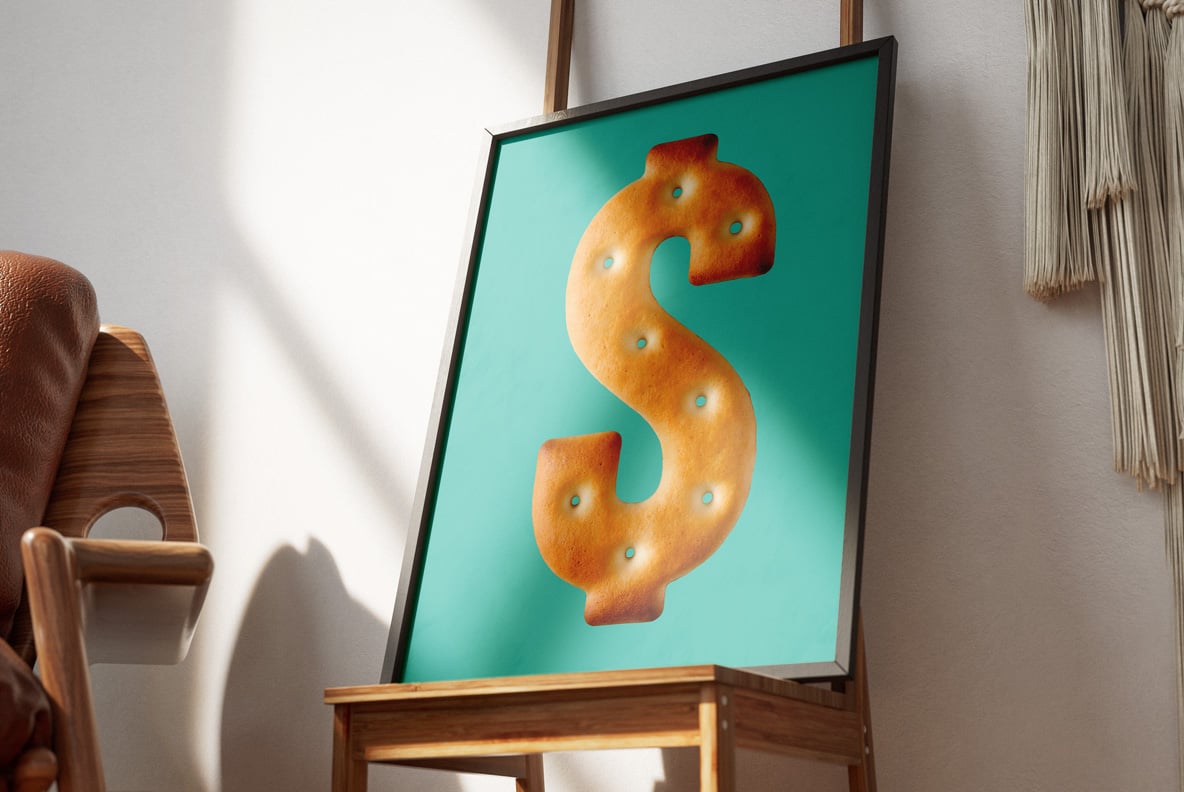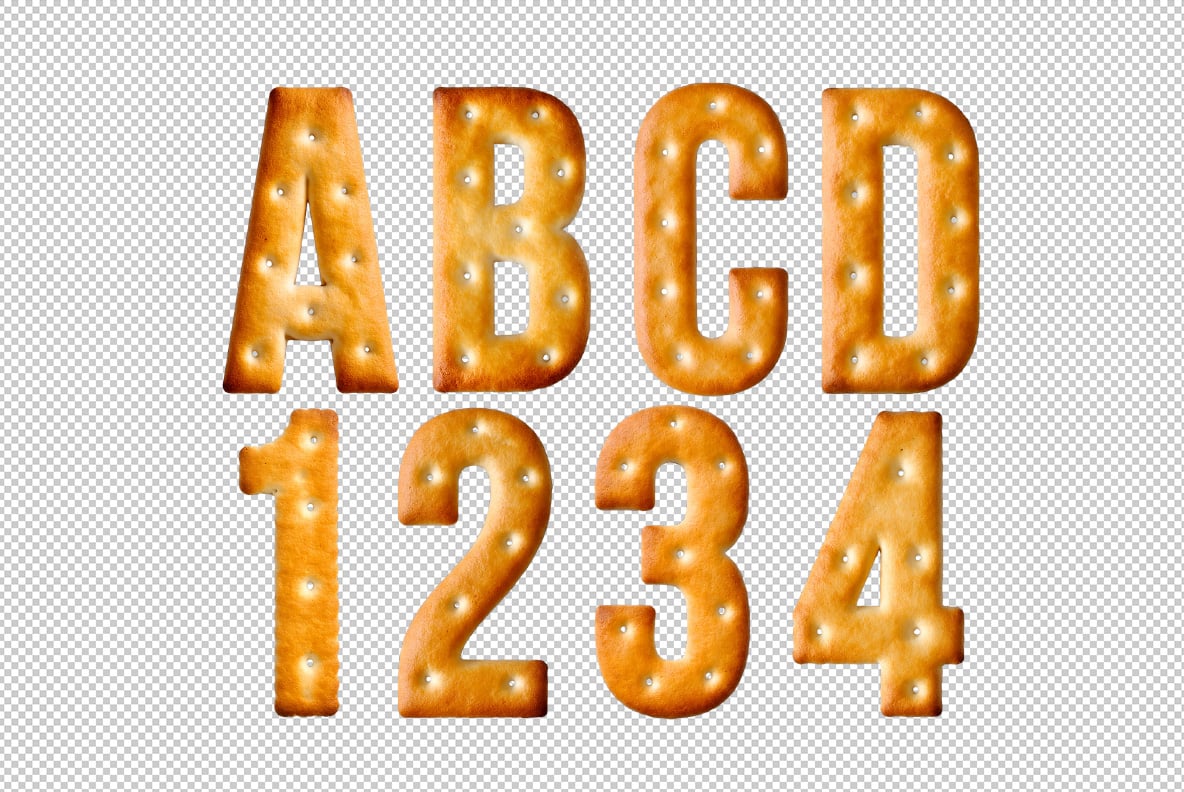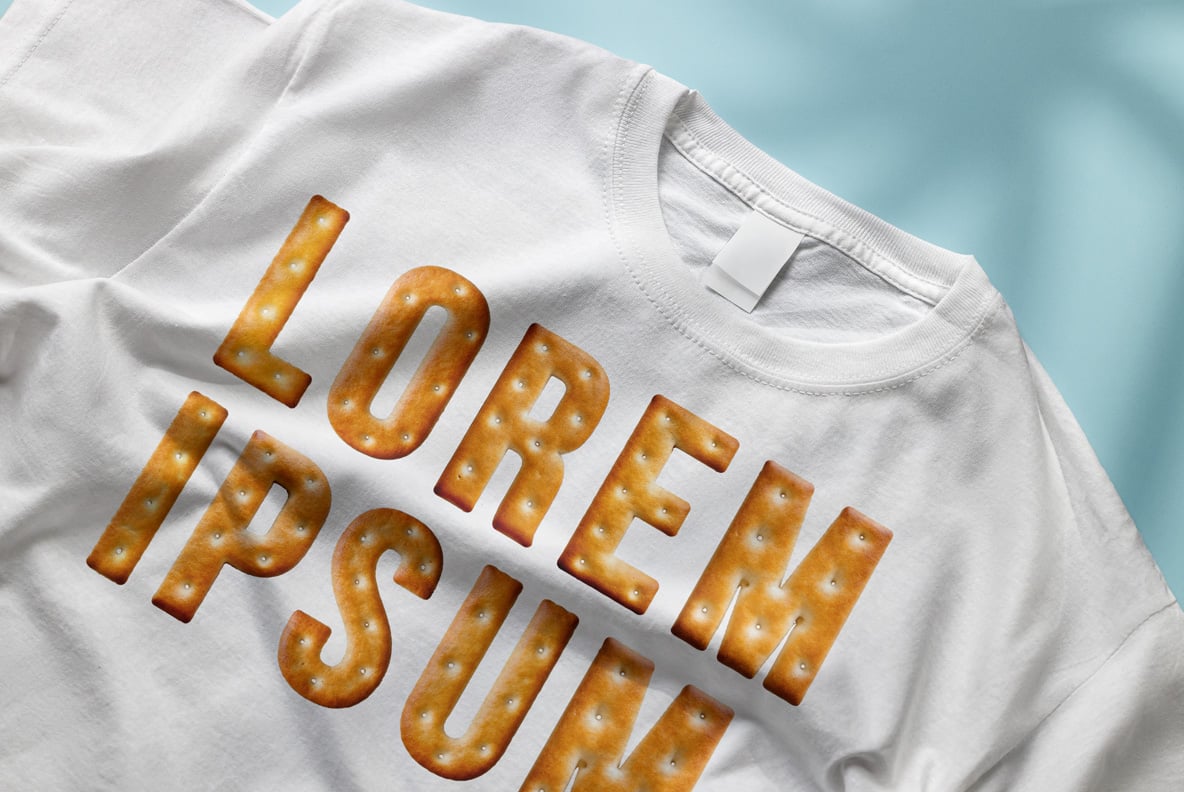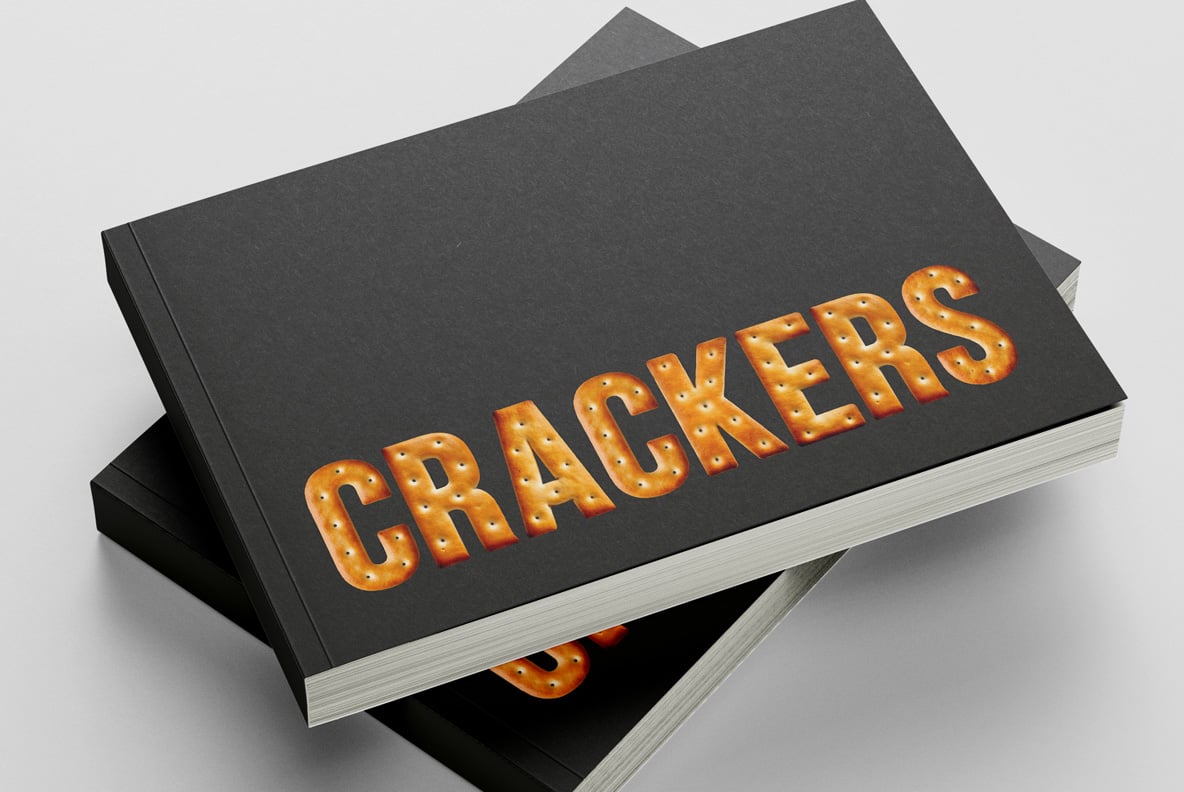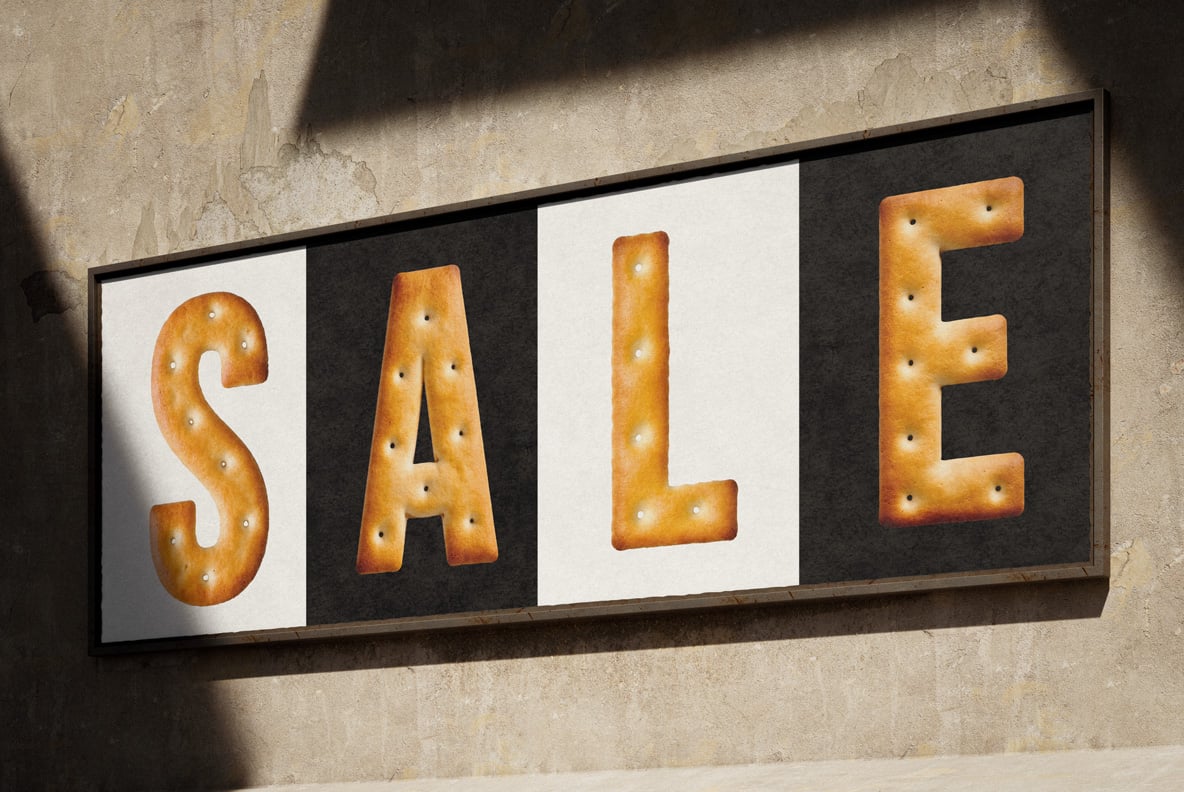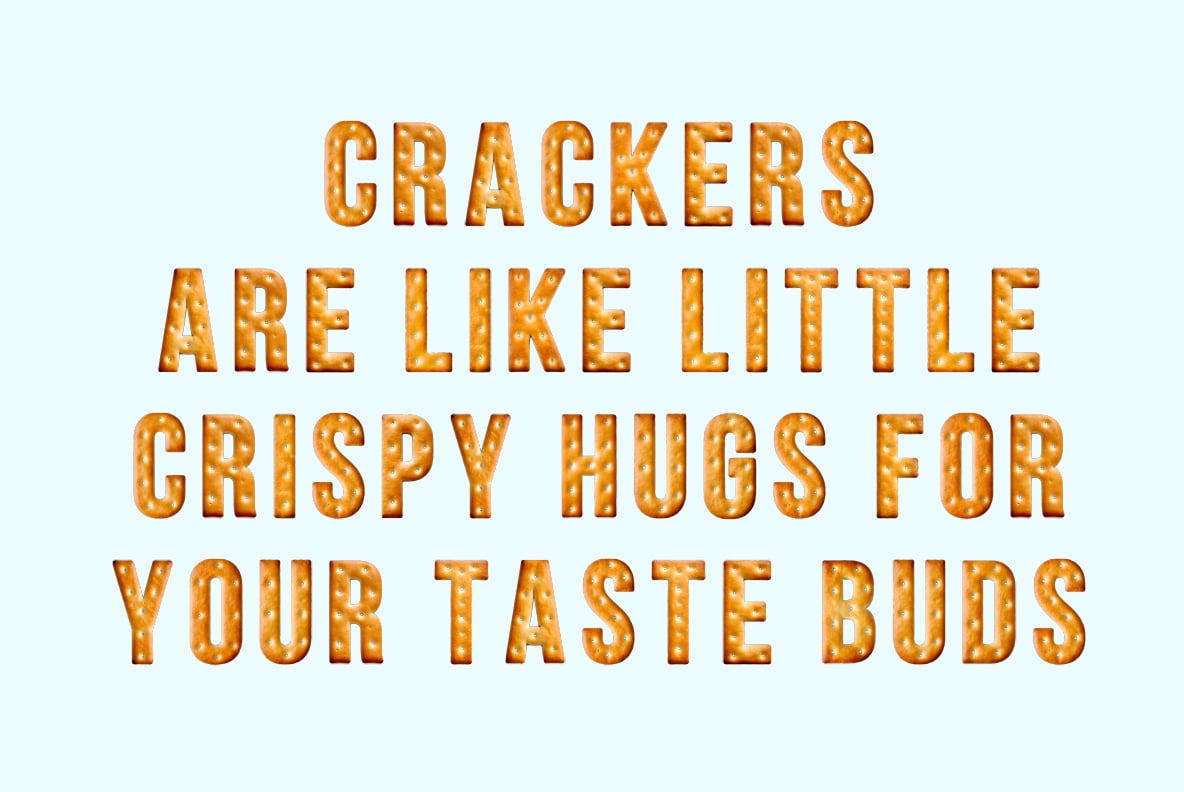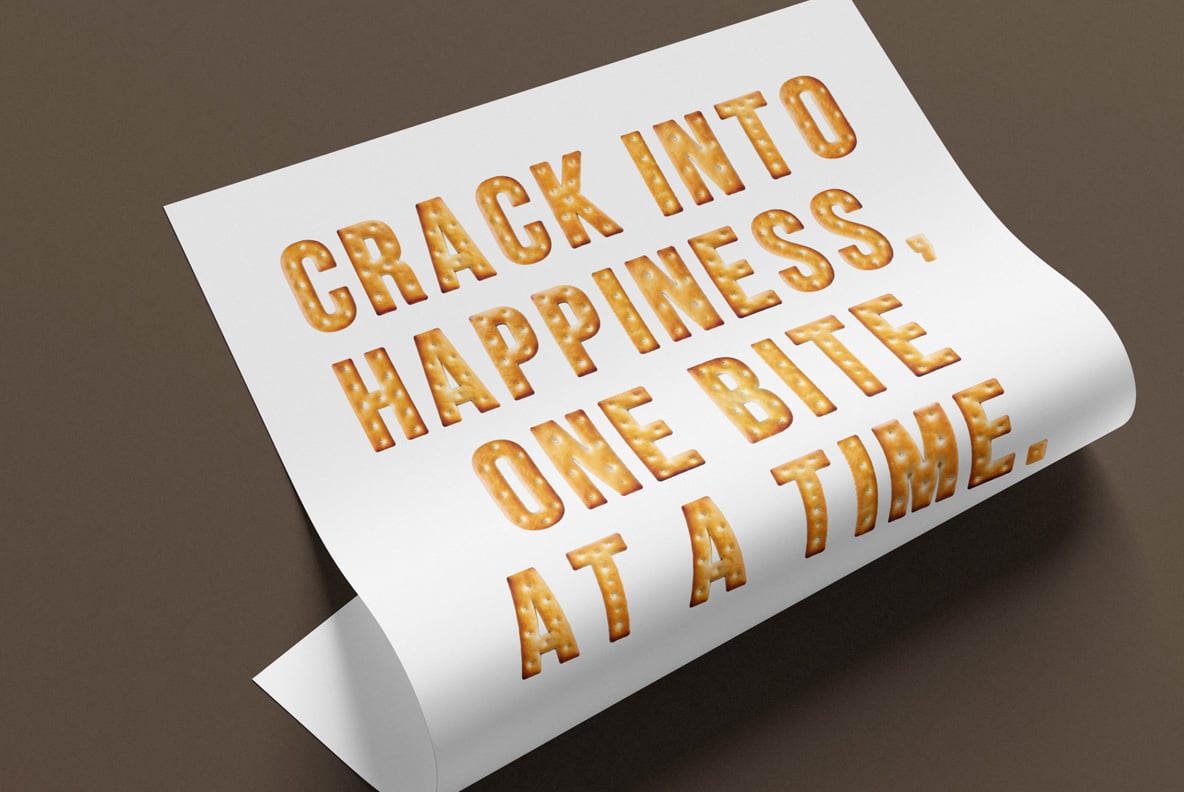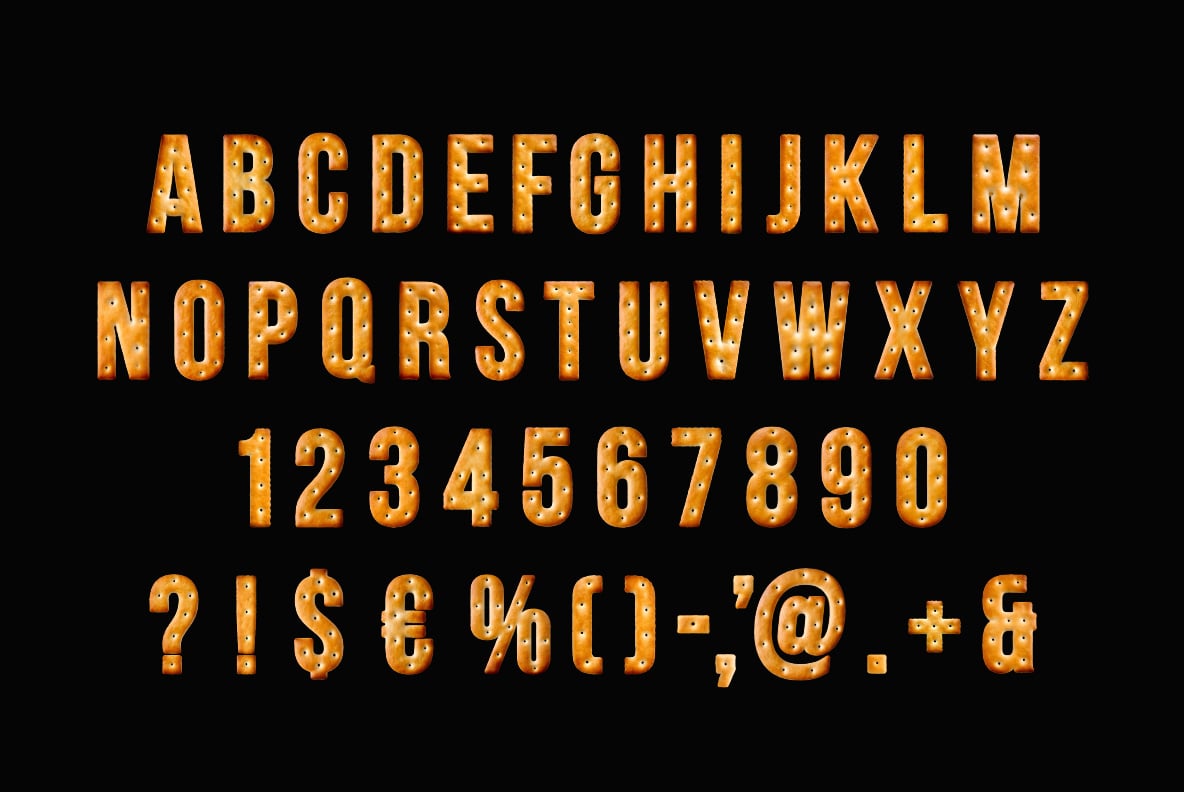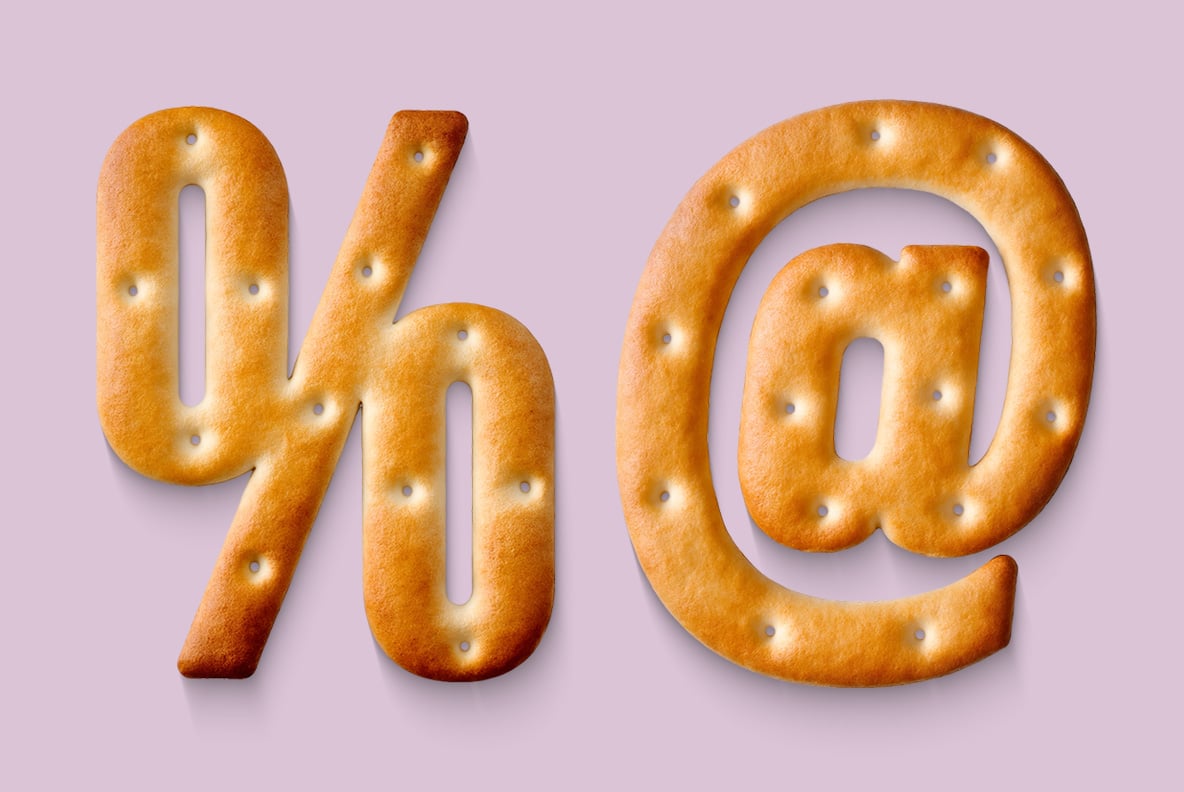
Crackers Font
Snack on creativity with Crackers Font, a deliciously designed typeface that looks just like crispy, golden-brown crackers. Each letter boasts a baked texture, complete with tiny perforations that mimic the irresistible crunch of a real cracker. This Crackers-inspired font brings an edible charm to typography, making it perfect for food design, playful branding, and mouthwatering visuals. Whether you’re crafting a Crackers alphabet for a menu or designing Crackers lettering for a bakery, this Crackers typography adds a tasty touch to any project. Let your words rise and crisp with this unique, baked-to-perfection font!
Others : ! ? - . ' $ € % & #